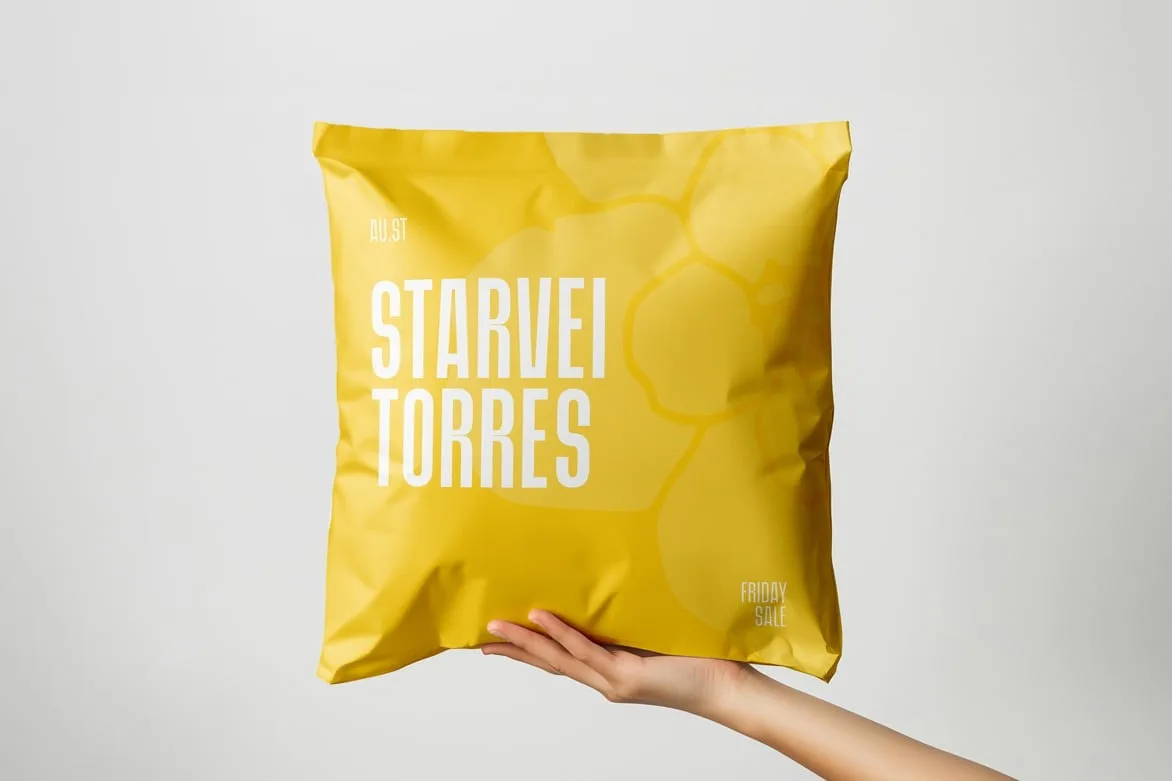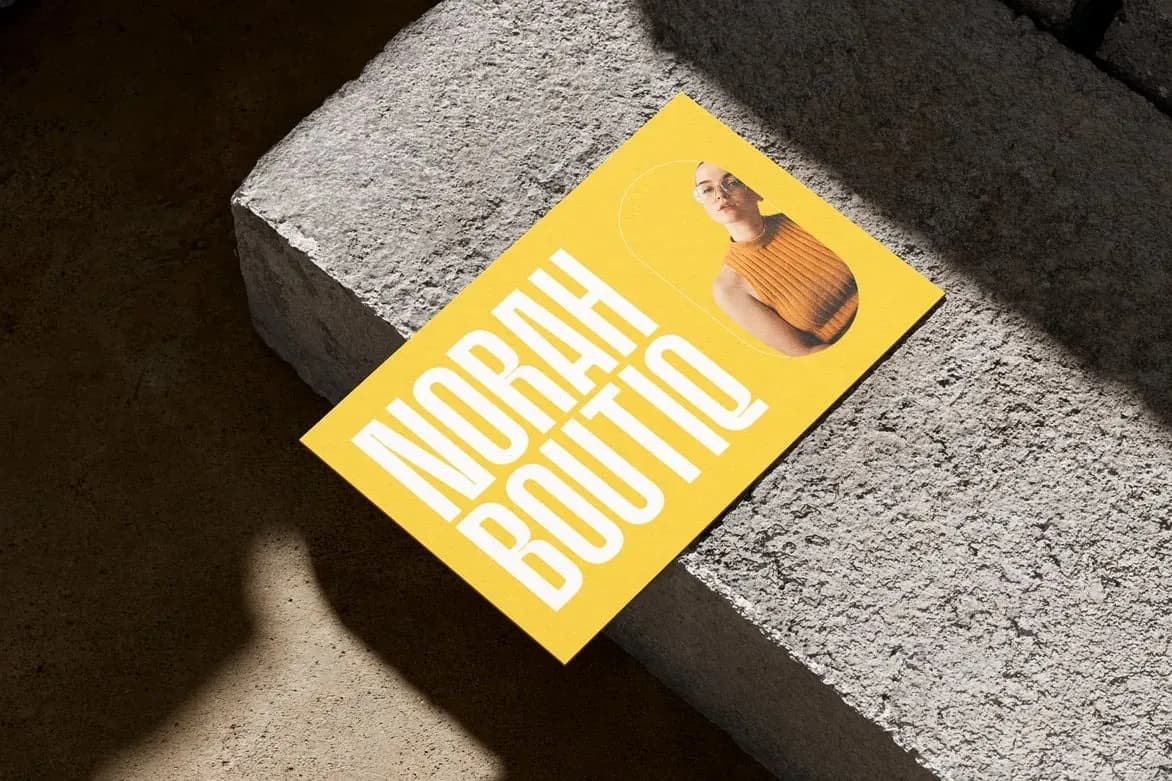
Baldur
Baldur is a bold, condensed display typeface crafted for maximum visual impact. Featuring tall letterforms, tight spacing, and clean structure, Baldur delivers strength, clarity, and precision across posters, branding, packaging, album covers, and modern digital layouts.
This versatile font family includes 9 weights with matching italics, totaling 18 fonts, providing designers with flexible typographic combinations for headlines, titles, and bold statements. Its sleek, condensed style ensures readability while making a striking impression in any design context.